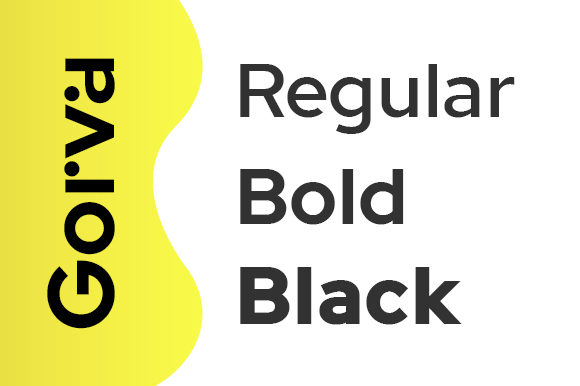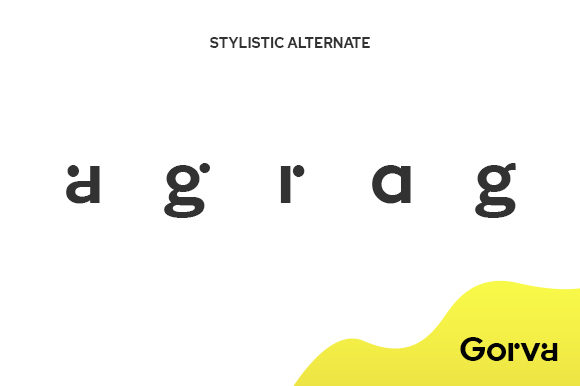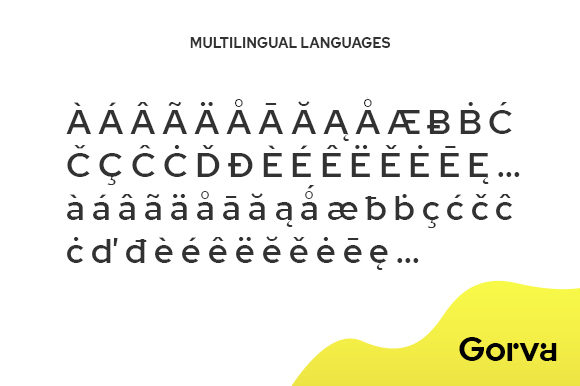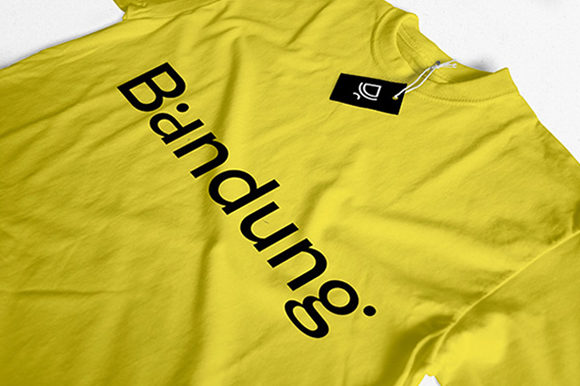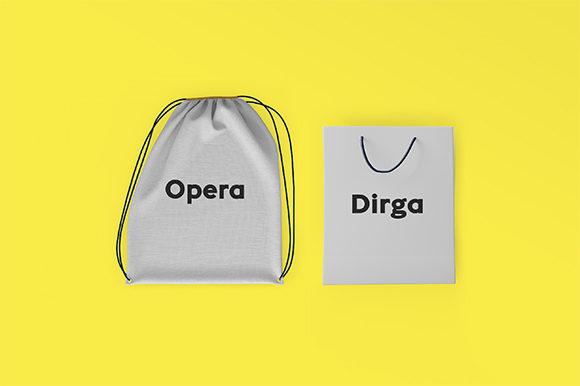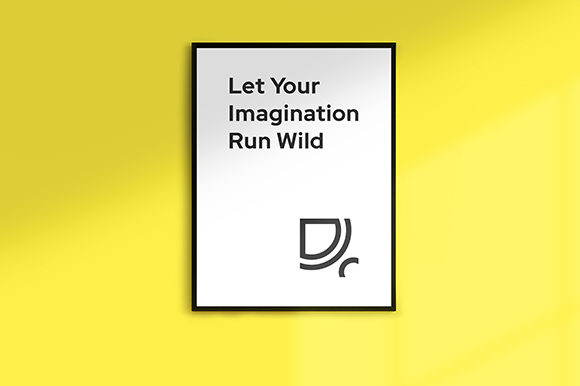
Gorva Font: Elevate Your Designs with a Modern Geometric Sans Serif
In the world of typography, a good font can make all the difference in elevating your designs to the next level. If you’re a designer or crafter looking for a modern and unique style, look no further than the Gorva Font. This geometric sans serif font is designed to add a touch of sophistication and elegance to any project, and in this article, we’ll explore its features and benefits.
What is Gorva Font?
Gorva Font is a geometric sans serif font that boasts a modern and unique style. Its clean lines, precise curves, and carefully crafted letterforms make it perfect for a wide range of design applications, from branding and advertising to packaging and digital media. Whether you’re working on a logo, brochure, or website, Gorva Font is sure to make a lasting impression.
One of the standout features of Gorva Font is its PUA (Private Use Area) encoding. This means that you can access all of the font’s great glyphs and swashes with ease, giving you a wealth of creative options at your fingertips. With PUA encoding, you can easily insert special characters, ligatures, and alternate glyphs into your designs, allowing you to add an extra layer of depth and visual interest.
Special Features: Alternate Glyphs and Ligatures
Gorva Font also features a range of special features that set it apart from other fonts. These include alternate glyphs and ligatures, which allow you to add an extra layer of creativity and sophistication to your designs. With alternate glyphs, you can choose from multiple versions of a single character, giving you more flexibility and creative control. Ligatures, on the other hand, allow you to combine multiple characters into a single glyph, creating a seamless and elegant look.
So why should designers and crafters choose Gorva Font for their projects? Here are just a few benefits:
- Modern and unique style: Gorva Font’s geometric sans serif design makes it perfect for modern and trendy projects.
- Ease of use: PUA encoding makes it easy to access all of the font’s great glyphs and swashes.
- Flexibility: Alternate glyphs and ligatures give you more creative control and flexibility.
- Elegance: Gorva Font’s clean lines and precise curves make it perfect for projects that require a touch of sophistication and elegance.
How to Use Gorva Font in Your Designs
Using Gorva Font in your designs is easy. Here are a few tips to get you started:
- Choose the right size: Gorva Font looks great at a range of sizes, from small captions to large headlines.
- Experiment with glyphs and swashes: Use PUA encoding to access all of the font’s great glyphs and swashes.
- Pair with other fonts: Gorva Font pairs well with a range of other fonts, from serif to script.
- Use in a variety of design applications: Gorva Font is perfect for a wide range of design applications, from branding and advertising to packaging and digital media.
| Font Name | Gorva Font |
| Author | Dasukreation |
In conclusion, Gorva Font is a modern and unique geometric sans serif font that’s perfect for designers and crafters looking to elevate their designs to the next level. With its PUA encoding, alternate glyphs, and ligatures, Gorva Font offers a wealth of creative options and flexibility. Whether you’re working on a logo, brochure, or website, Gorva Font is sure to make a lasting impression.